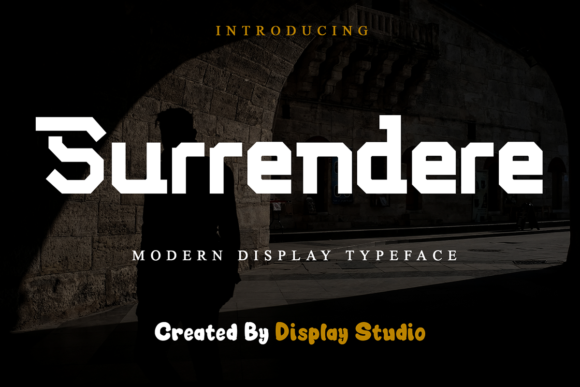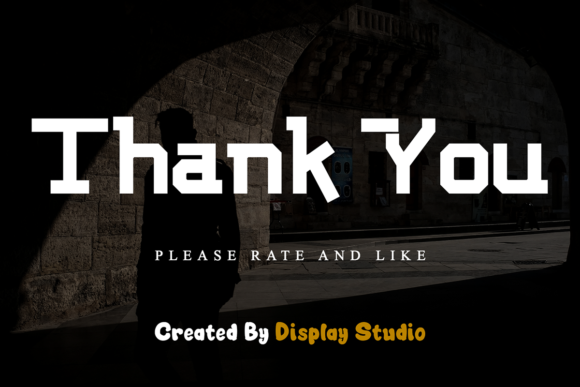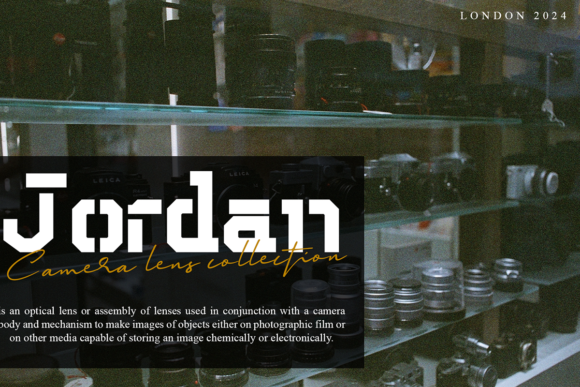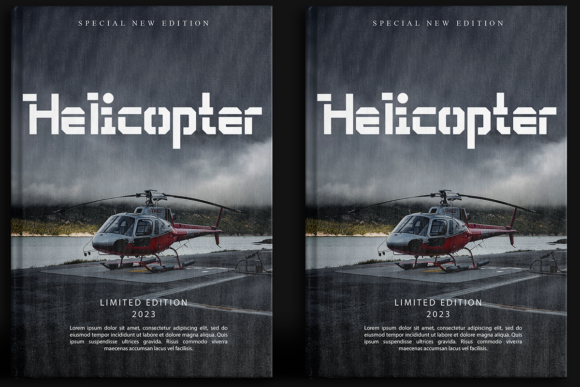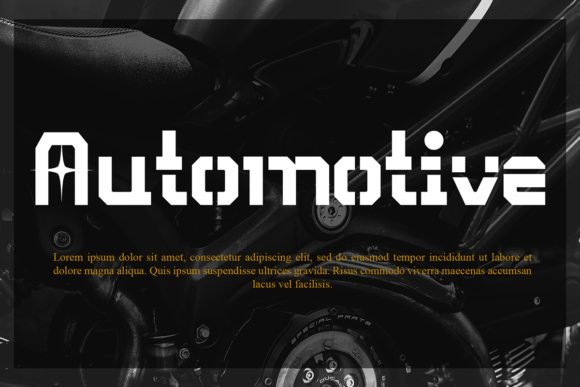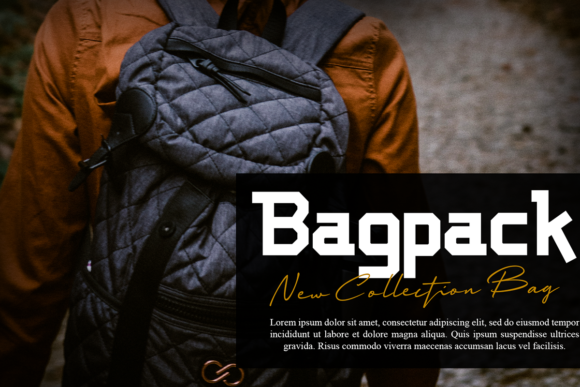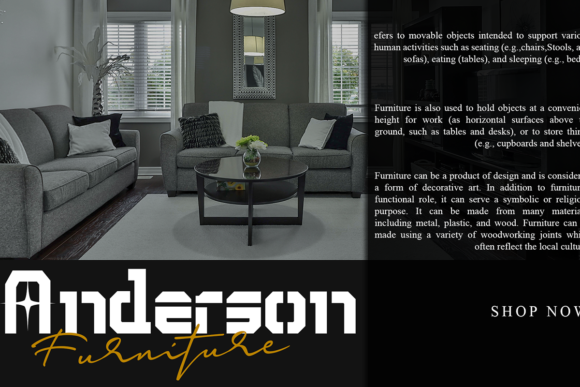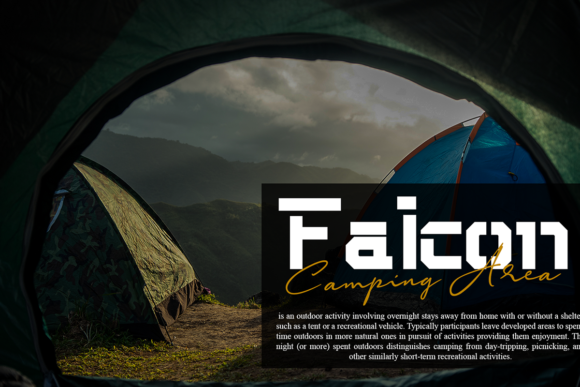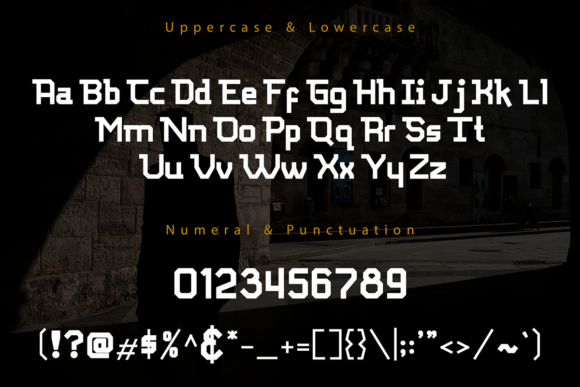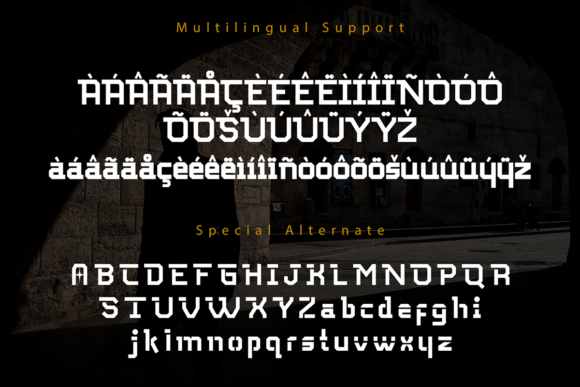
Surrendere
Surrendere: A Modern and Cool Slab Serif Font
Surrendere is a distinctive slab serif font that combines modern style with a cool aesthetic. This versatile typeface is designed to enhance a wide range of design projects, offering both style and functionality.
Key Features of Surrendere
• Modern Design: Offers a contemporary look that aligns with current design trends.
• Cool Aesthetic: Provides a trendy and appealing appearance suitable for various applications.
• Slab Serif Structure: Incorporates the characteristic thick, rectangular serifs typical of slab serif fonts.
• Multilingual Support: Includes characters for multiple languages, expanding its usability.
• Style Variations: Offers different style options to suit various design needs.
• PUA Encoded: Allows easy access to all glyphs and swashes for enhanced design flexibility.
• Versatile Application: Suitable for a wide range of projects, from brand logos to greeting cards.
Ideal Uses for Surrendere
Surrendere’s unique characteristics make it particularly well-suited for:
• Brand logos and identity design
• Invitations for various events
• Greeting cards with a modern touch
• Website headers and digital content
• Poster and advertisement layouts
• Social media graphics and content
When incorporating Surrendere into your designs, consider these tips:
• Use for headlines or short blocks of text to showcase its modern and cool style
• Experiment with different style variations to find the perfect look for your project
• Take advantage of its multilingual features for international designs
• Utilize the PUA encoding to access special characters and swashes
Surrendere is an excellent choice for designers looking to add a modern and cool slab serif font to their typographic toolkit. Its ability to enhance various design projects with its unique aesthetic makes it stand out in the world of typography. Whether you’re working on logo designs for contemporary brands, creating layouts for invitations, or developing content that requires a touch of coolness and modernity, Surrendere offers the perfect blend of style and versatility.
Furthermore, Surrendere’s multilingual support and style variations allow it to shine in various contexts. From vintage-inspired designs with a modern twist to more playful layouts that need a touch of sophistication, this font can elevate your projects. Its modern yet cool style works particularly well in designs that require a thoughtful and refined mood.
In conclusion, Surrendere is a font that bridges the gap between modern trends and cool aesthetics. Its ability to work well in both contemporary, minimalist projects and more elaborate layouts showcases its flexibility. For those looking to add a touch of modern coolness to their work, Surrendere can even enhance themed creations with its unique style, further improving the overall aesthetic aspect of your designs.